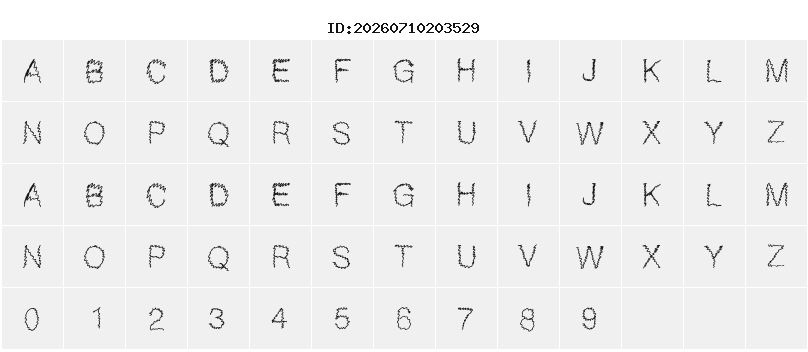
Gaelle307 Preview
• Font Name: Gaelle307
• Full Font Name: Gaelle307
• PostScript Name: Gaelle307
• Character Count: 98
About Gaelle307.ttf
Gaelle307.ttf is a modern, elegant sans-serif font designed for ultimate readability and visual harmony. Perfect for branding, headlines, web design, and print materials.